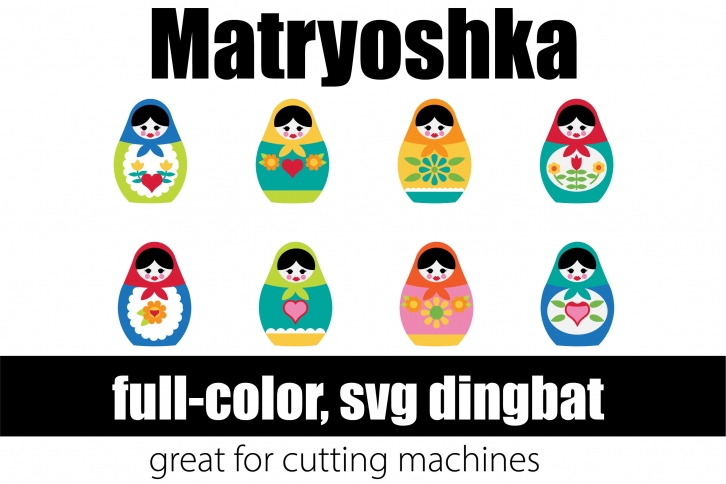
Matryoshka is a sweet, useful and unique color font. Add it confidently to your favorite creations and let yourself be amazed by the outcome generated. Wayfarer is PUA encoded which means you can access all of the glyphs and swashes with ease!